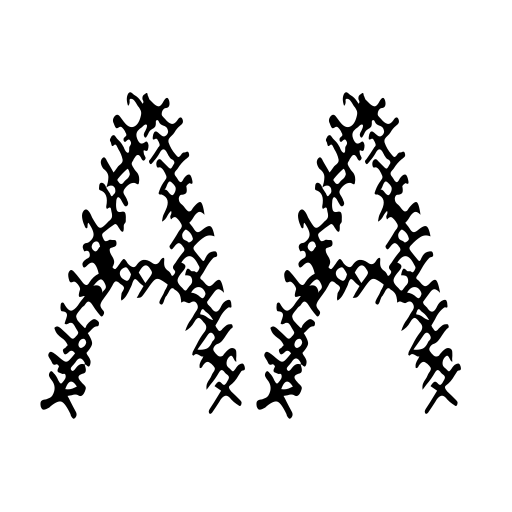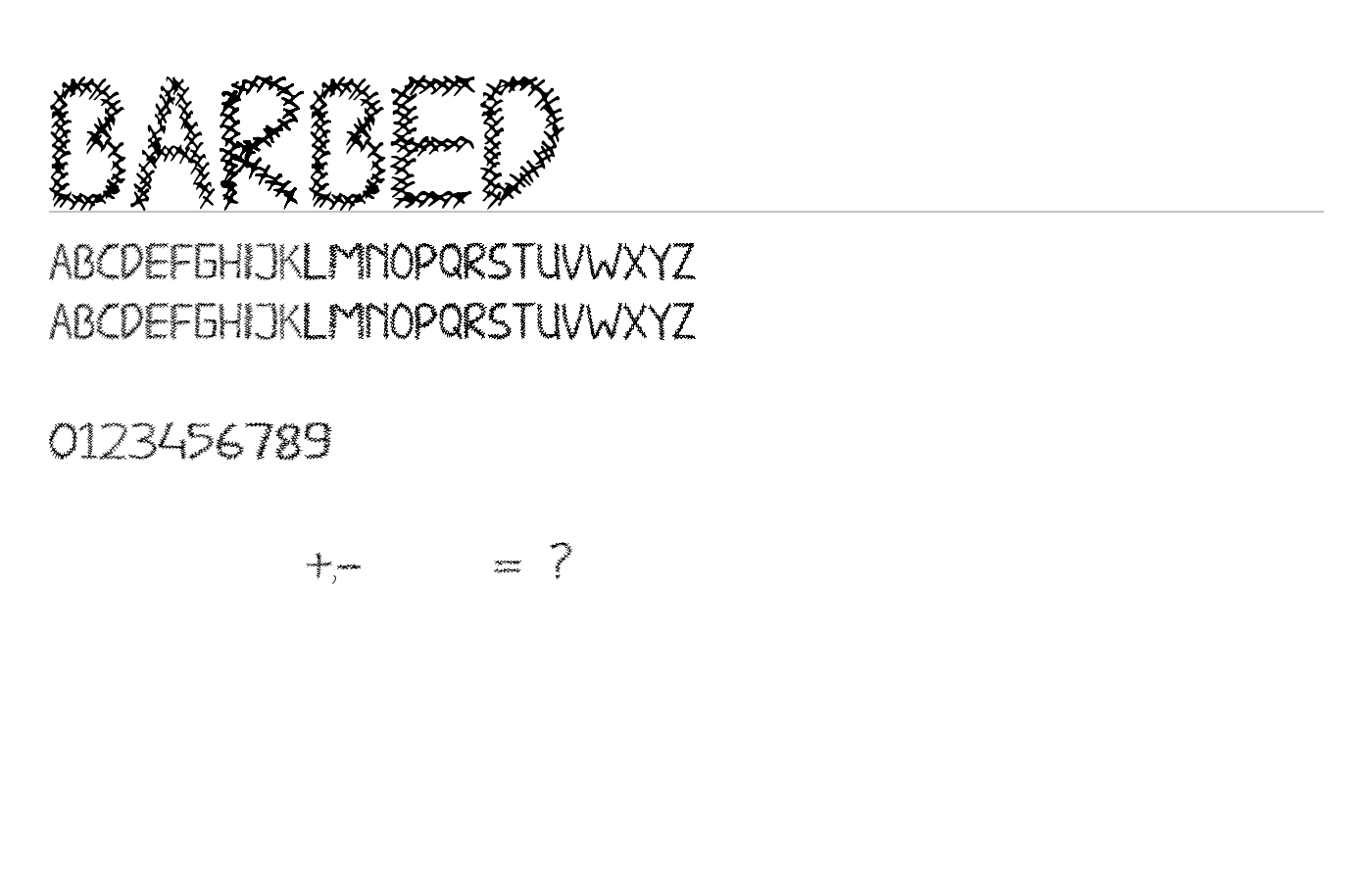
BARBED is a bold, decorative display font characterized by its unique barbed wire motif that forms the letter shapes, creating a sharp and edgy aesthetic. This all-caps typeface stands out with its irregular, sketch-like texture and narrow letterforms, making it perfect for designs that require a strong, rebellious, or industrial vibe. It works well in logos, posters, or headlines where a striking, gritty impact is desired.
BARBED Font
About BARBED Font
| Font family | BARBED Font |
| Designer | Oziel89 Studio |